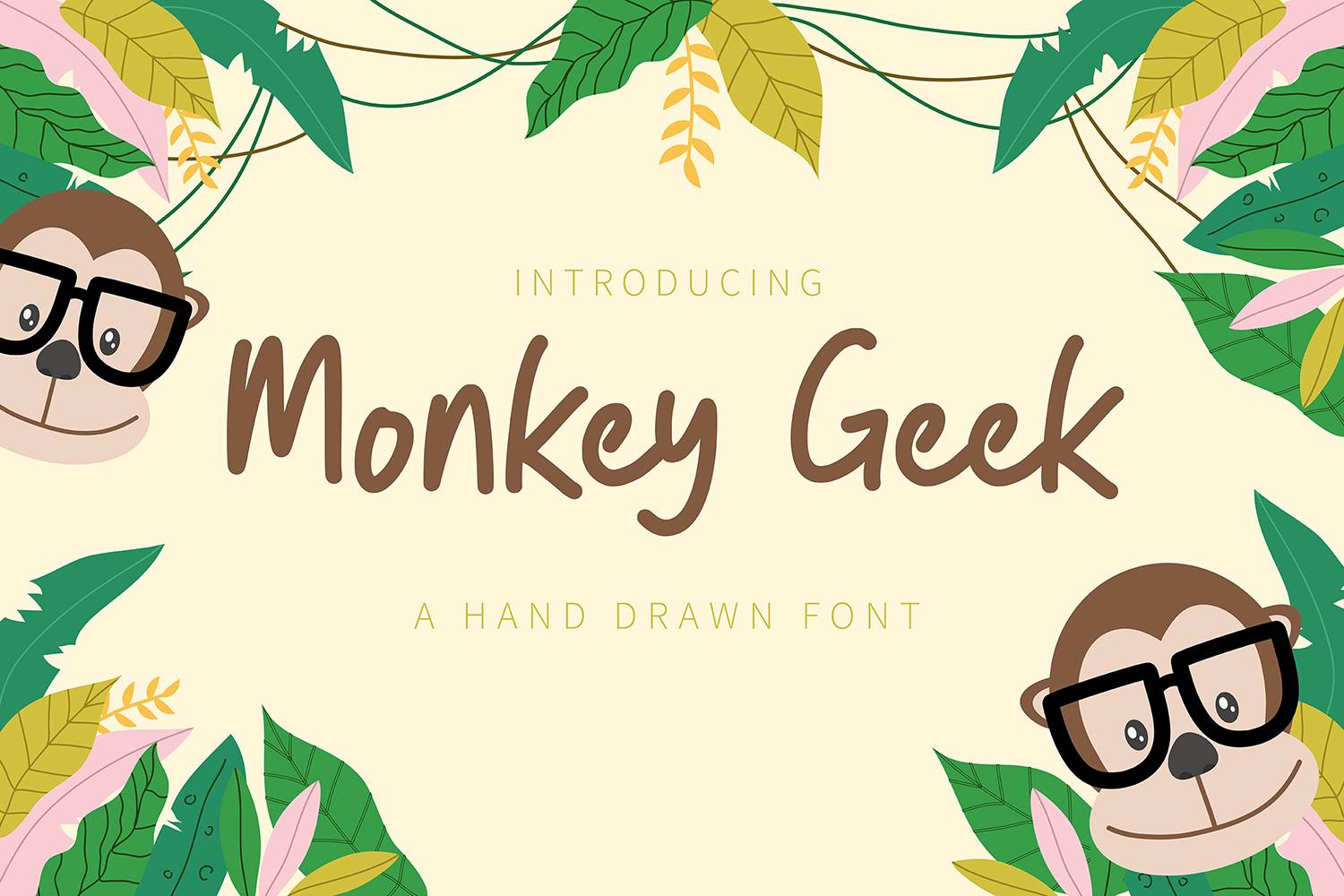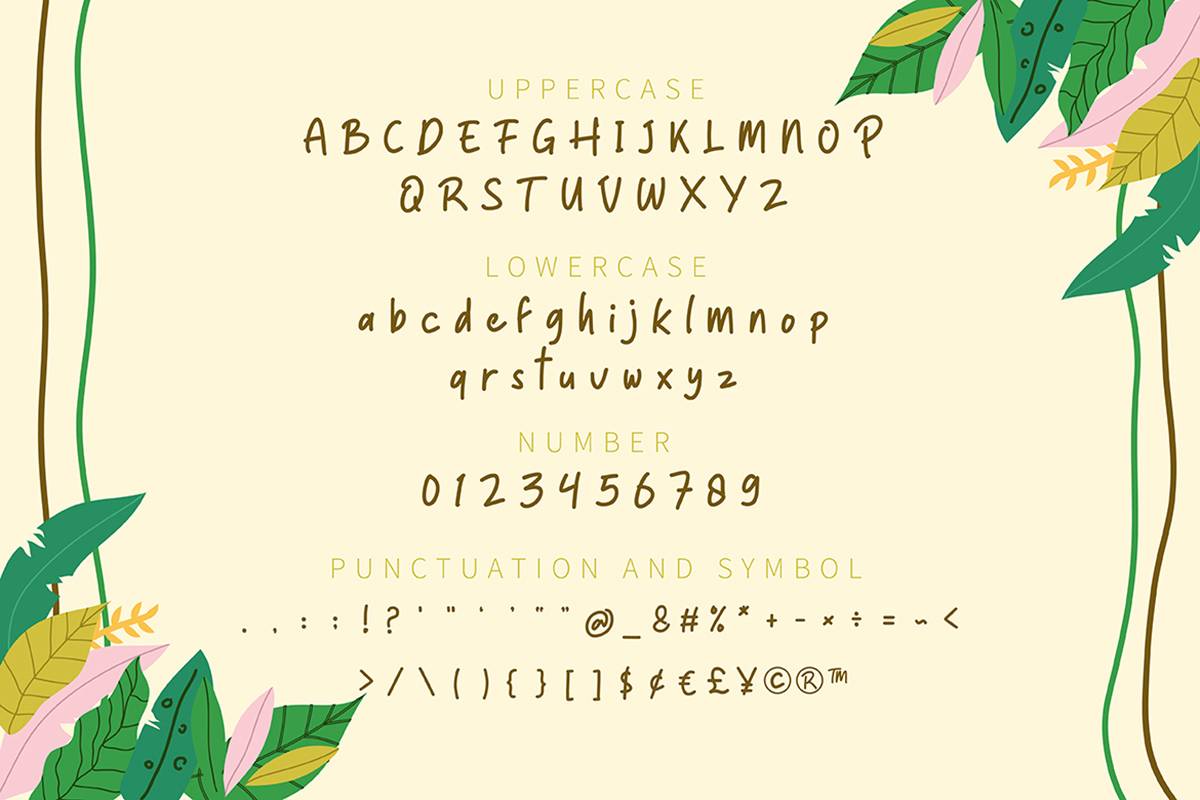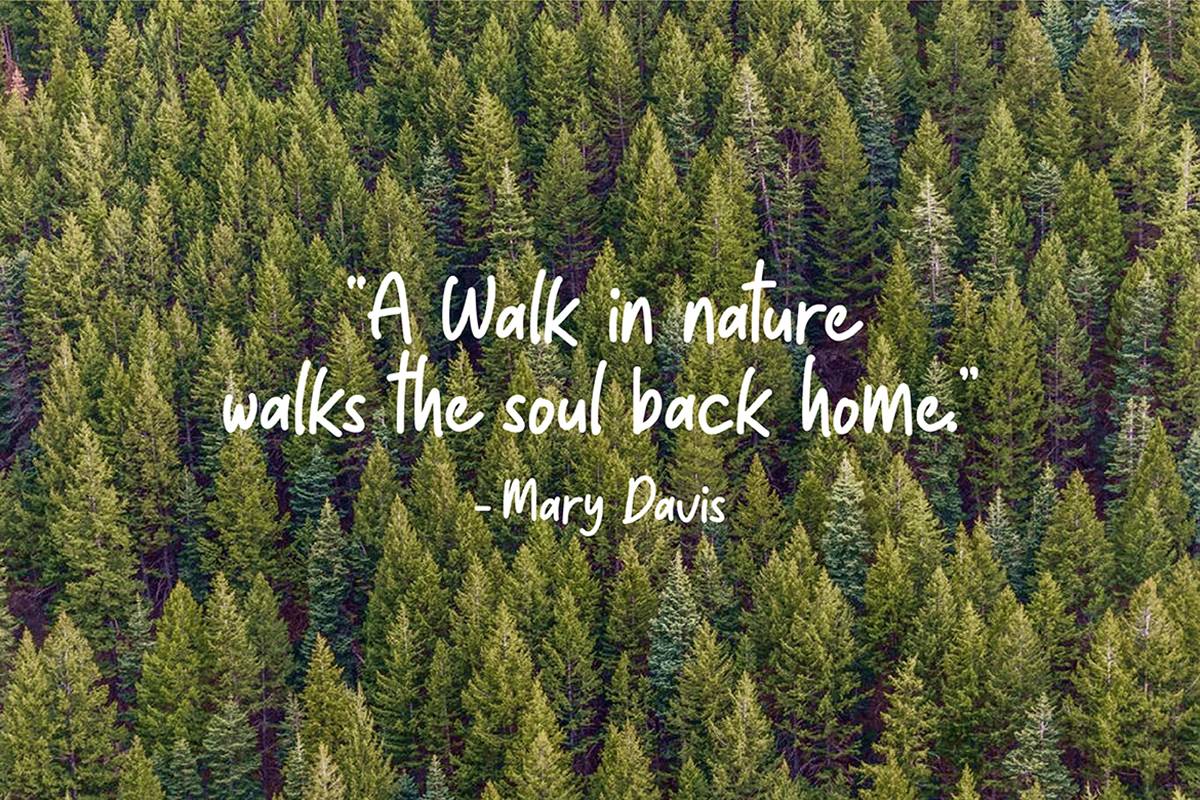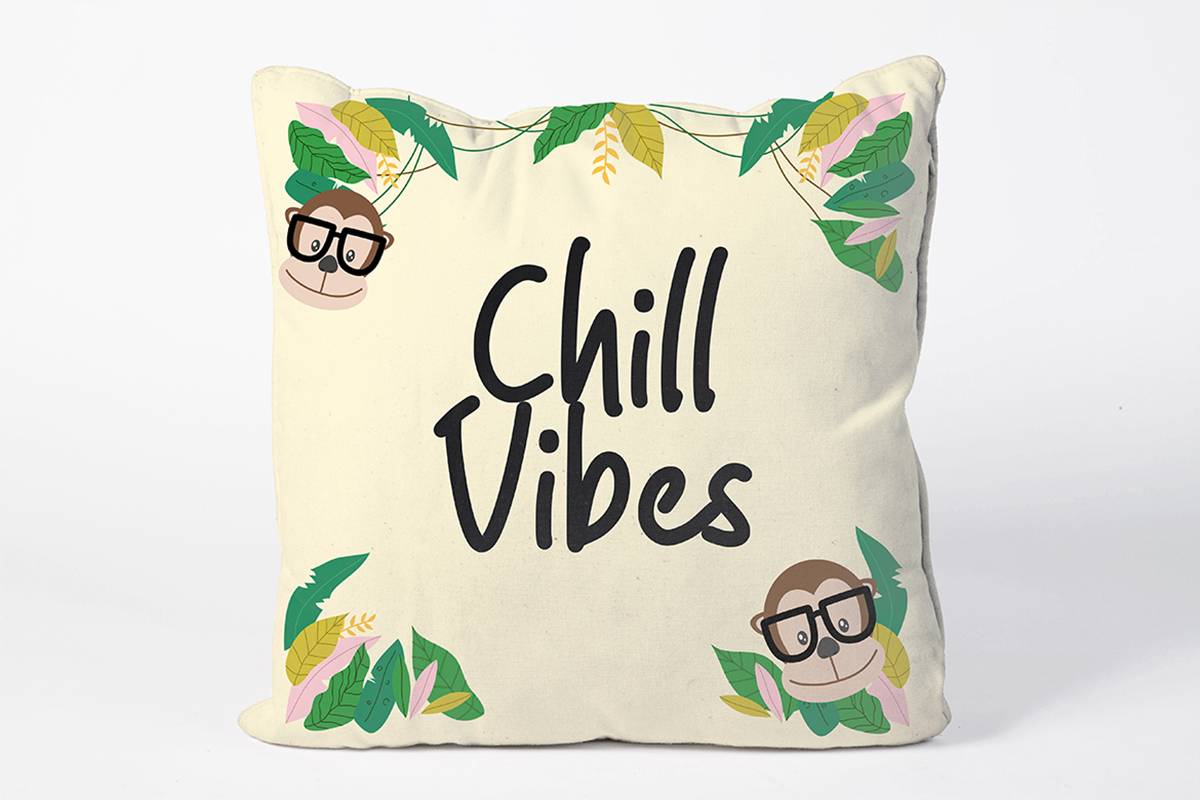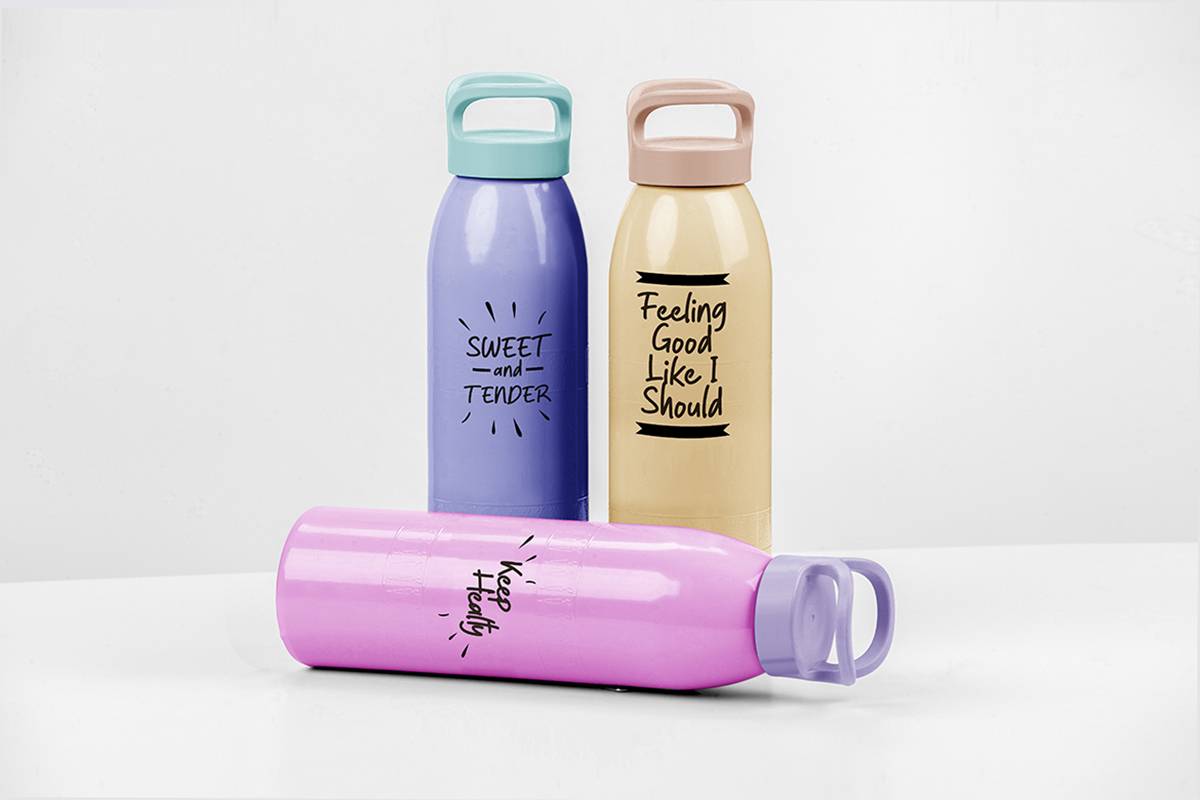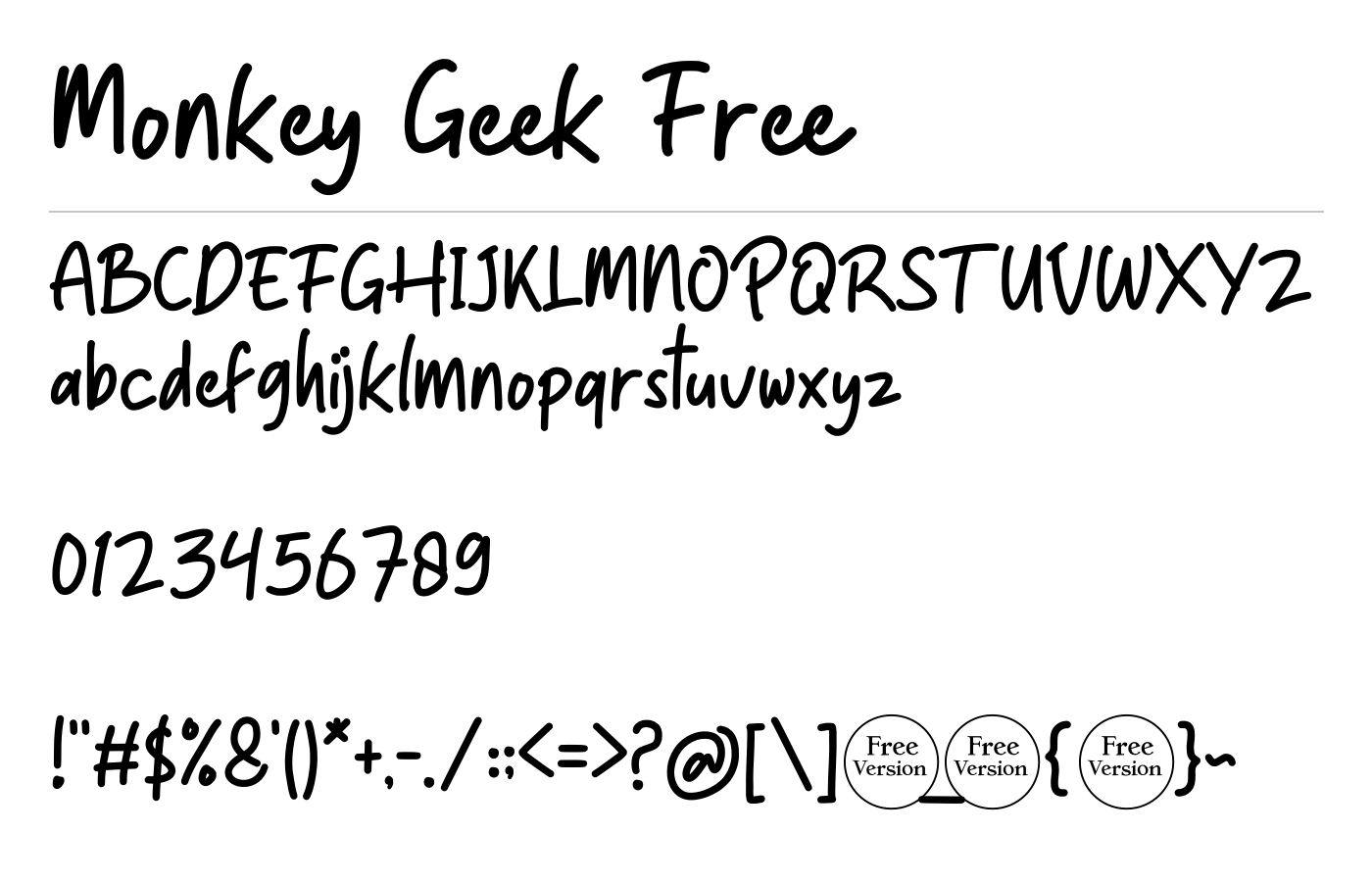
Monkey Geek is a casual, handwritten sans serif font with an energetic and playful feel. Its irregular strokes and lively letterforms give it a friendly personality, making it ideal for informal designs, children’s materials, and fun branding projects. This font works well for headlines, logos, and creative content where a personal, approachable touch is desired.
Monkey Geek Font
About Monkey Geek Font
| Font family | Monkey Geek Font |
| Release date | 2020-09-11 |
| Designer | Andi Rosandi |